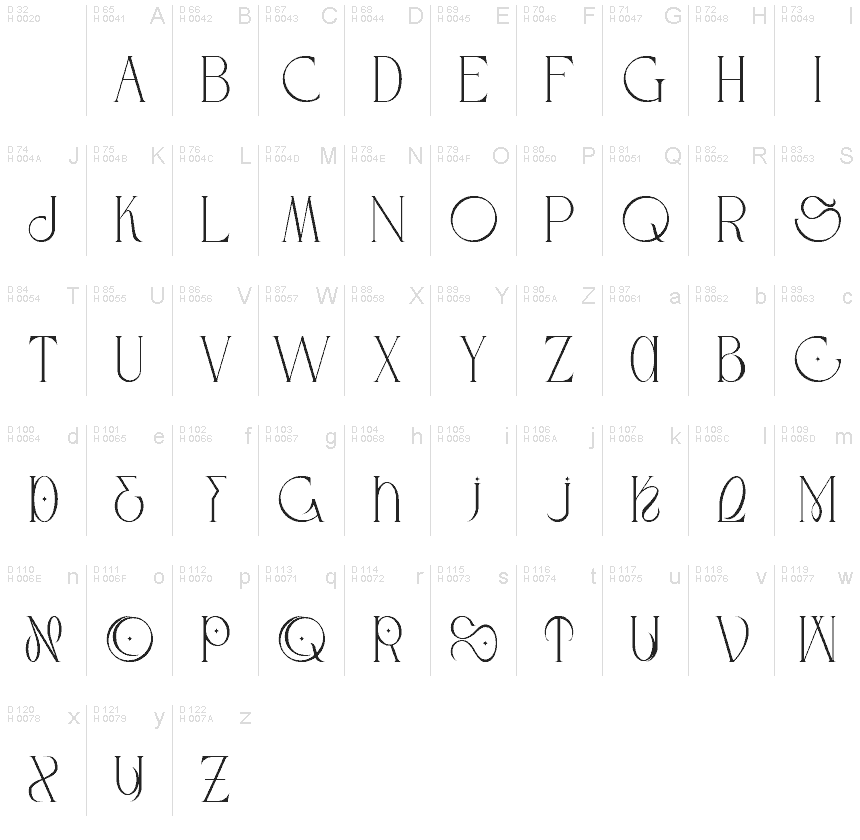
Kindly Season DEMO Regular
Kindly Season font designed by Dharmas Studio is an elegant light display font that concentrates highly on the visual level to deliver a sophisticated artistic tool. Its ornamental shapes hold a whimsical appearance with decorative elements that entertain and delight. Combine historical influences with a contemporary appeal for all your creations both printed and digital.
Such free display fonts instantly transform headlines, logos, posters, banners, book covers, magazines, and business cards. They add a new flavor to any branding project or product packaging. Enjoy its use also online in website designs or social media platforms and posts.